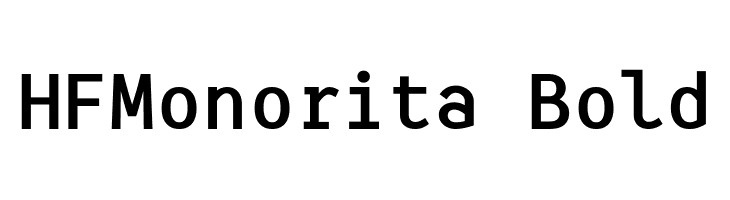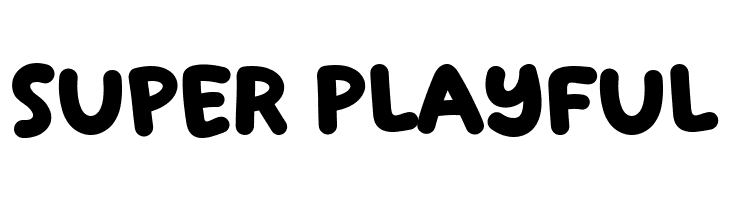
A clean, outlined font with rounded edges, perfect for educational use.
Hand-drawn pictogram icon font for social and community themes.
A modern, italic sans-serif font with a clean and dynamic style.
Hand-drawn, instructional sign language illustrations with clean lines.
Minimalist line-art icon set with religious and spiritual themes.
A unique set of hand sign representations for communication.
A bold, monospaced typeface with a modern, geometric design.
A bold, playful font with rounded, uniform strokes and a whimsical touch.
Hand-drawn business icon set with a casual, sketchy appearance.
A diverse set of ornamental symbols with bold outlines and intricate details.